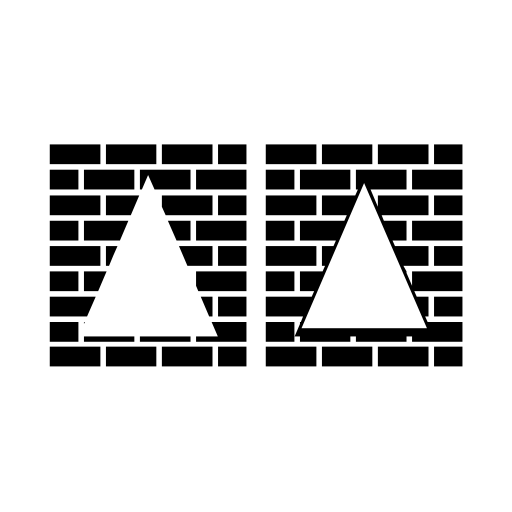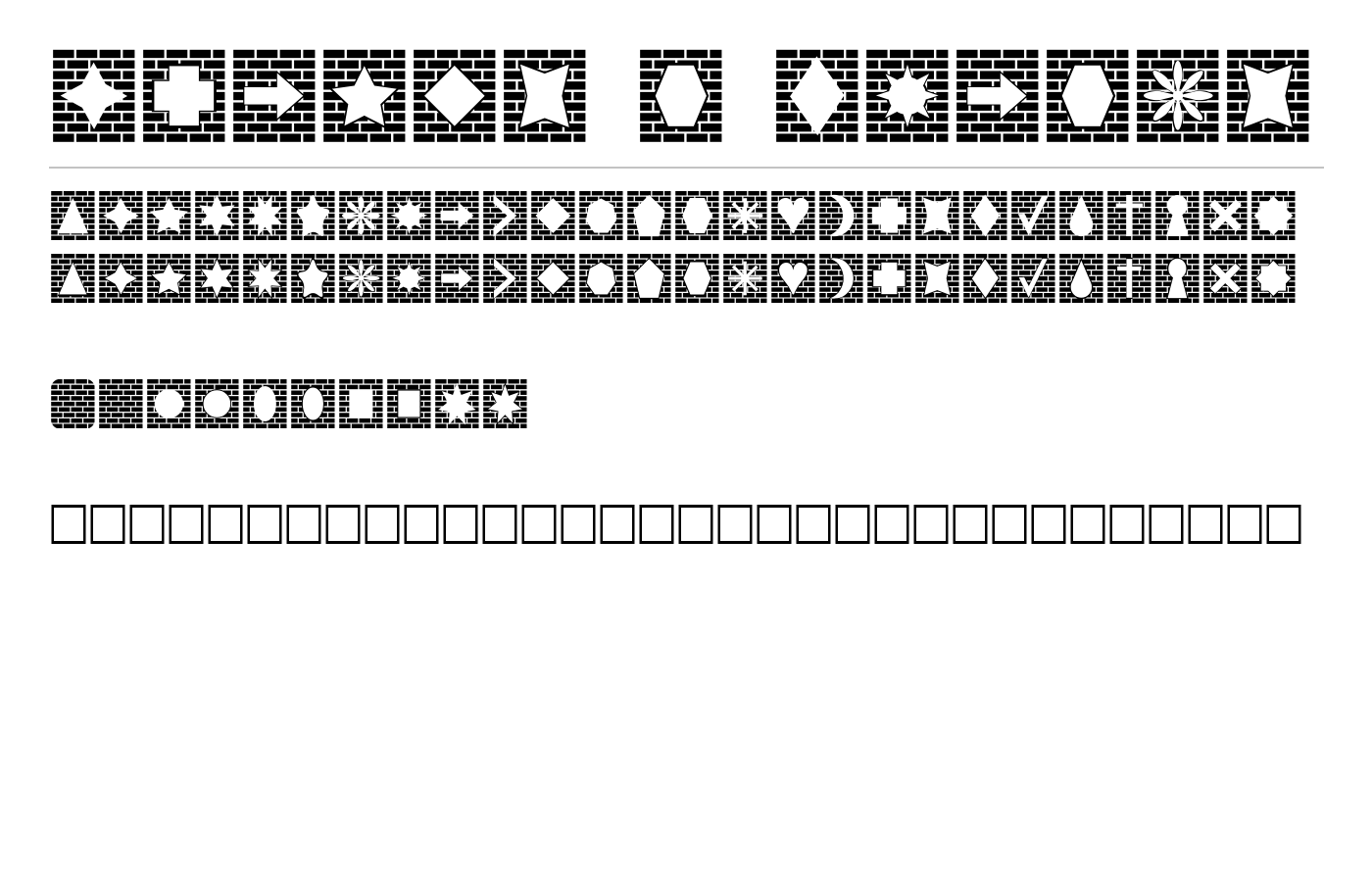
Bricks n Things is a decorative, symbol-based font that features shapes and icons set against a brick-patterned background, creating a bold, textured effect. This font has a playful and unique style, perfect for adding a quirky, urban flair to graphic design projects, logos, posters, and creative packaging where a strong visual impact is desired. Its distinctive brick motif works especially well in designs aiming for an industrial or street-art vibe.
Bricks n Things Font
About Bricks n Things Font